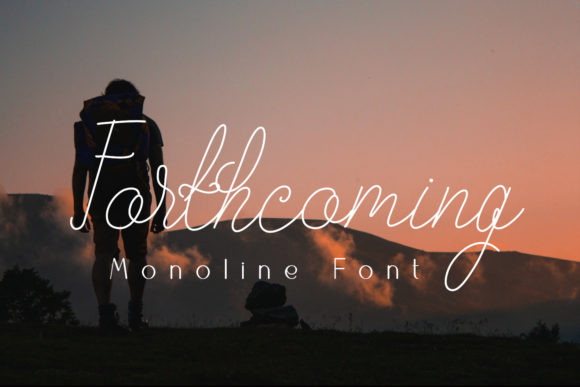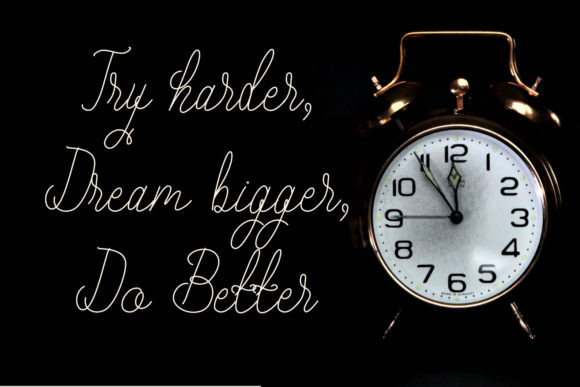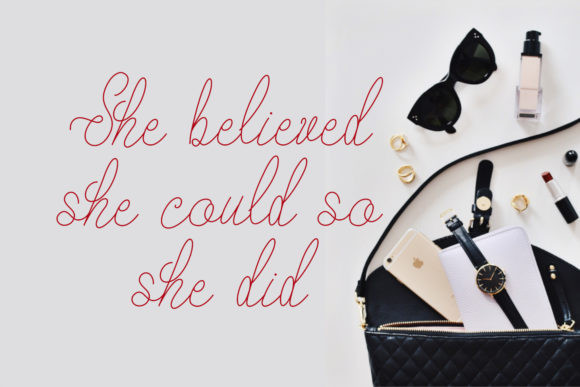
Forthcoming Font
Forthcoming is a thin and elegant handwritten font. It looks stunning on wedding invitations, thank you cards, quotes, greeting cards, logos, business cards and every other design which needs a handwritten touch. It features a varying baseline, smooth lines, gorgeous glyphs and stunning alternates.